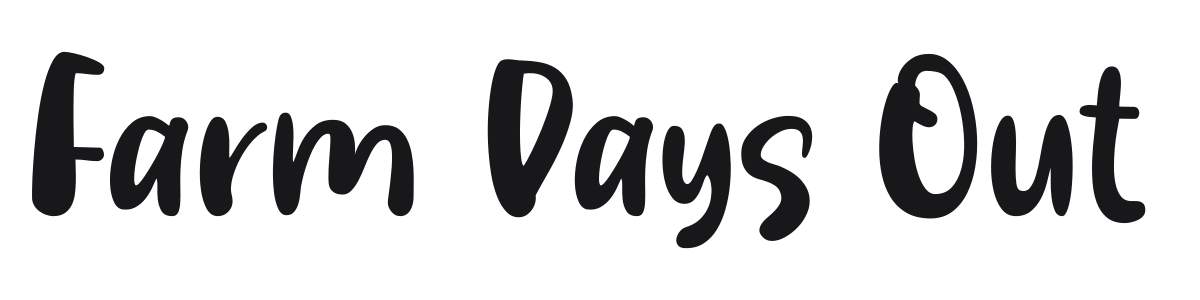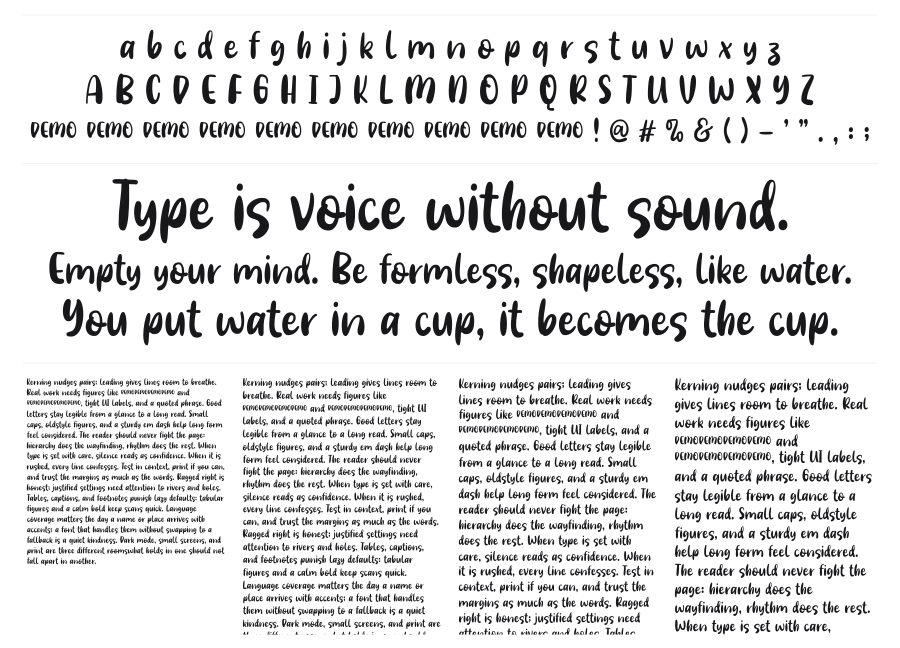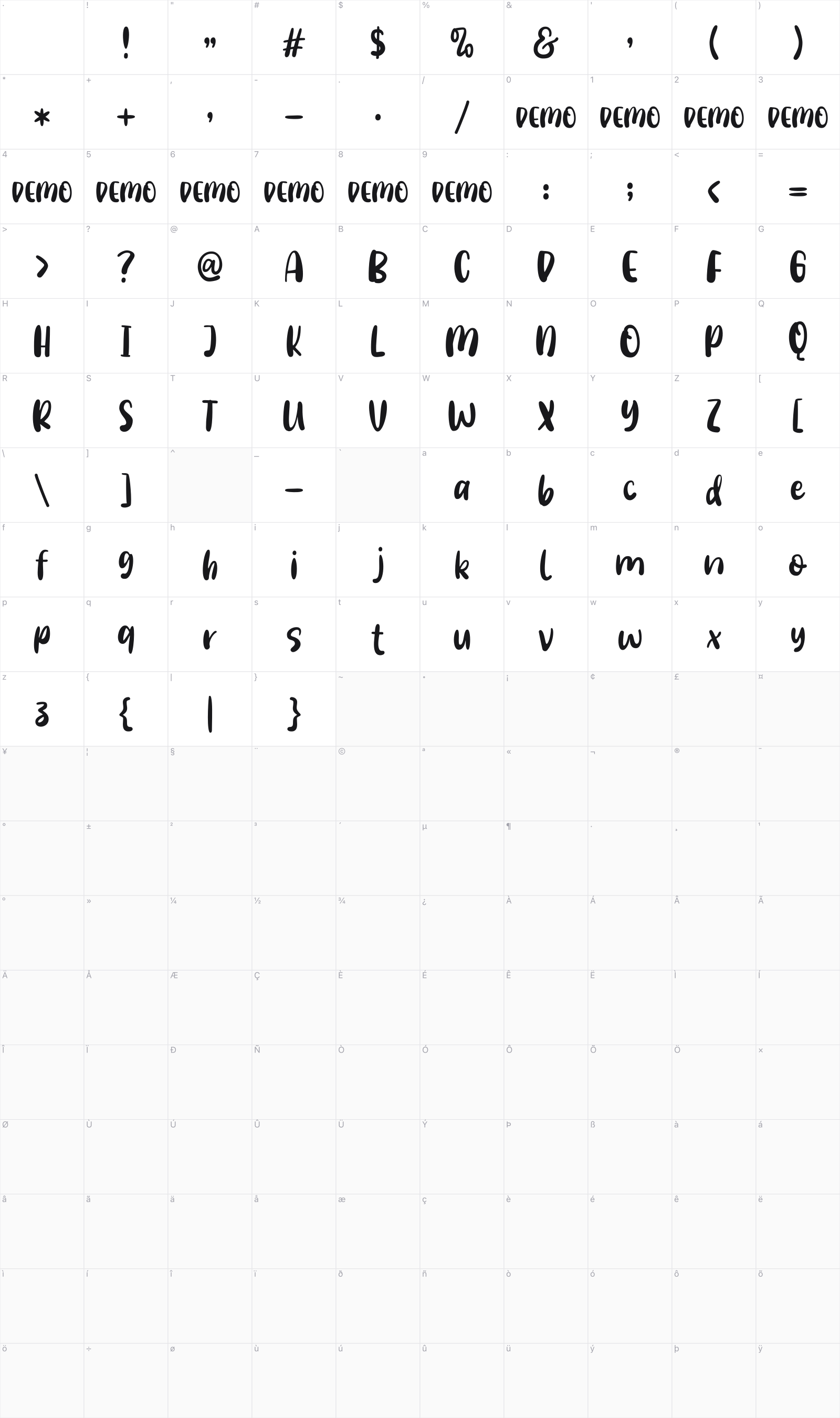
Farm Days Out
Farm Days Out is a bold, casual script with thick rounded strokes and a hand-lettered bounce. The chunky, low-contrast letterforms feel like something painted on a farmers market sign or scrawled on a chalkboard with genuine enthusiasm. It brings warmth and an easygoing charm to packaging, branding, and headline work.